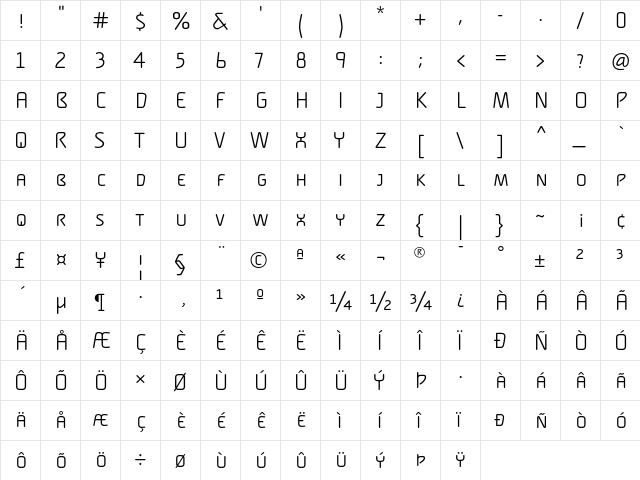
Alega-LightSmallCaps Regular Font Preview
Alega-LightSmallCaps Regular
Alega-LightSmallCaps Regular Font Details
| Foundry | Siegfried Rueckel, published by FontShop International for the FontFont library |
Design Context for Alega-LightSmallCaps Typeface
Alega-LightSmallCaps offers clean, dependable letterforms without strong stylistic allegiance, making it a practical choice for designers who need flexibility. Its slender proportions lend an understated elegance to any composition.